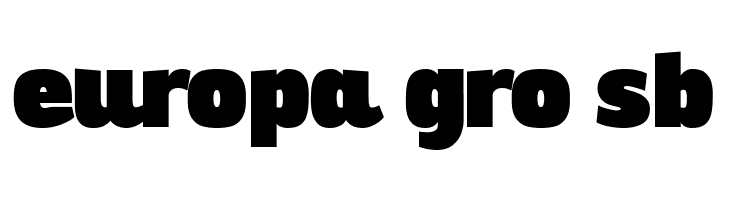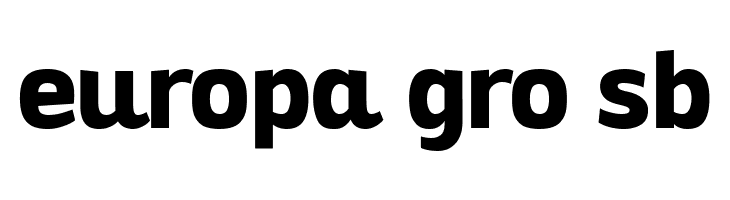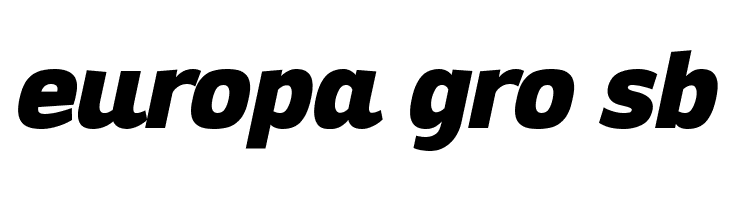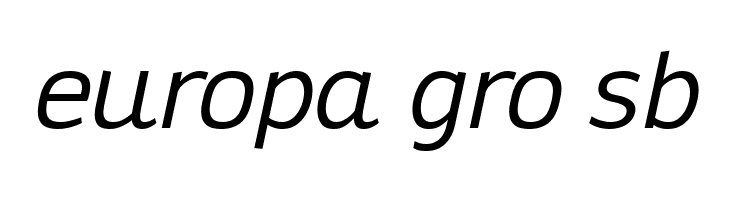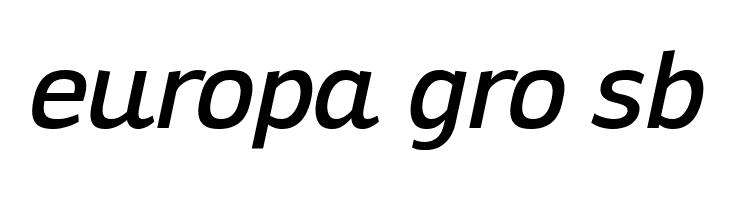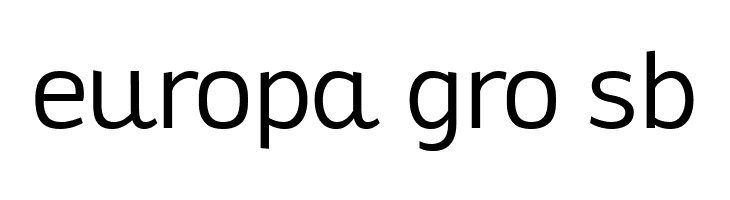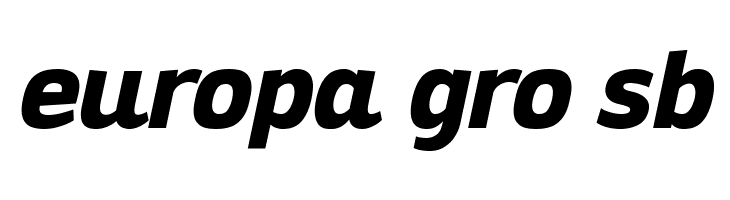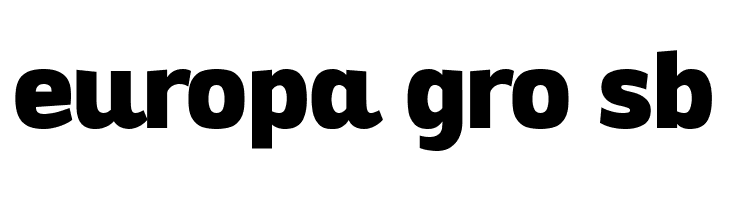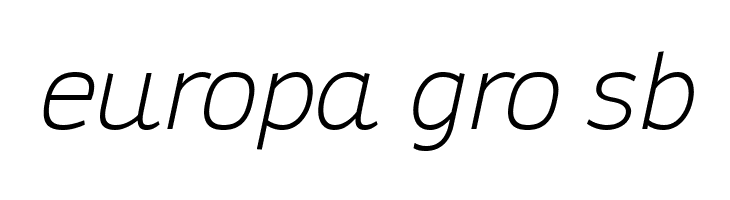
• Altair ExtraBold
A bold, modern font with clean lines and rounded edges, perfect for impactful designs.
• Altair ExtraBold Italic
A bold, italic typeface with a modern and dynamic style.
• Altair Heavy
A bold and heavy typeface with strong, impactful strokes and rounded edges.
• Altair Heavy Italic
A bold, italic font with a dynamic and modern style.
• Altair Italic
A sleek, modern italic font with smooth, flowing lines and a dynamic slant.
• Altair Light
A modern, light sans-serif font with clean lines and excellent readability.
• Altair Light Italic
A sleek, modern, light italic sans-serif font with a clean and professional look.
• Altair Thin Italic
A sleek, modern thin italic typeface with balanced spacing and fluid design.
• Altair Ultra
A bold, modern font with strong, geometric characters and minimal contrast.
• Altair Ultra Italic
A bold, italic font with strong, dynamic strokes and a powerful presence.